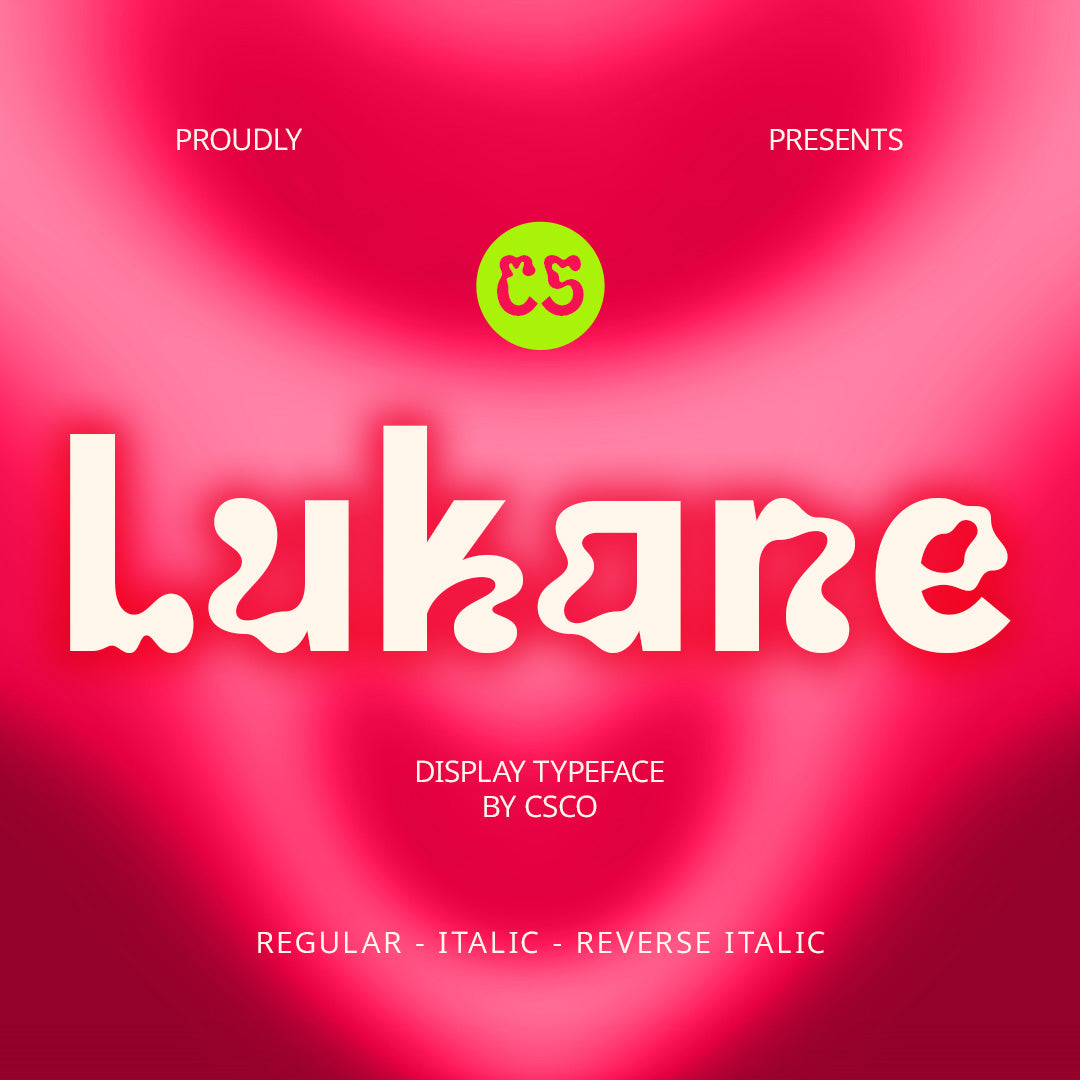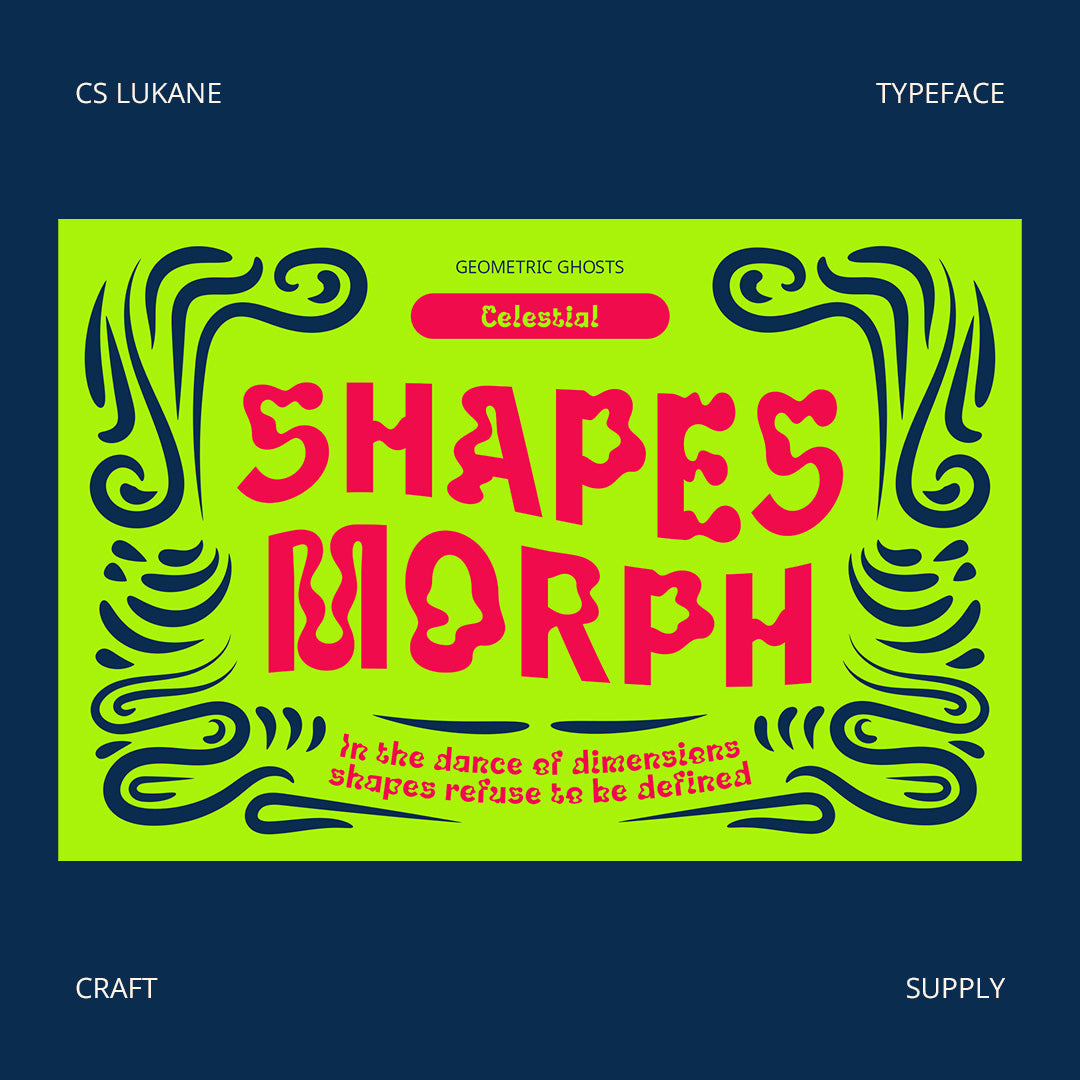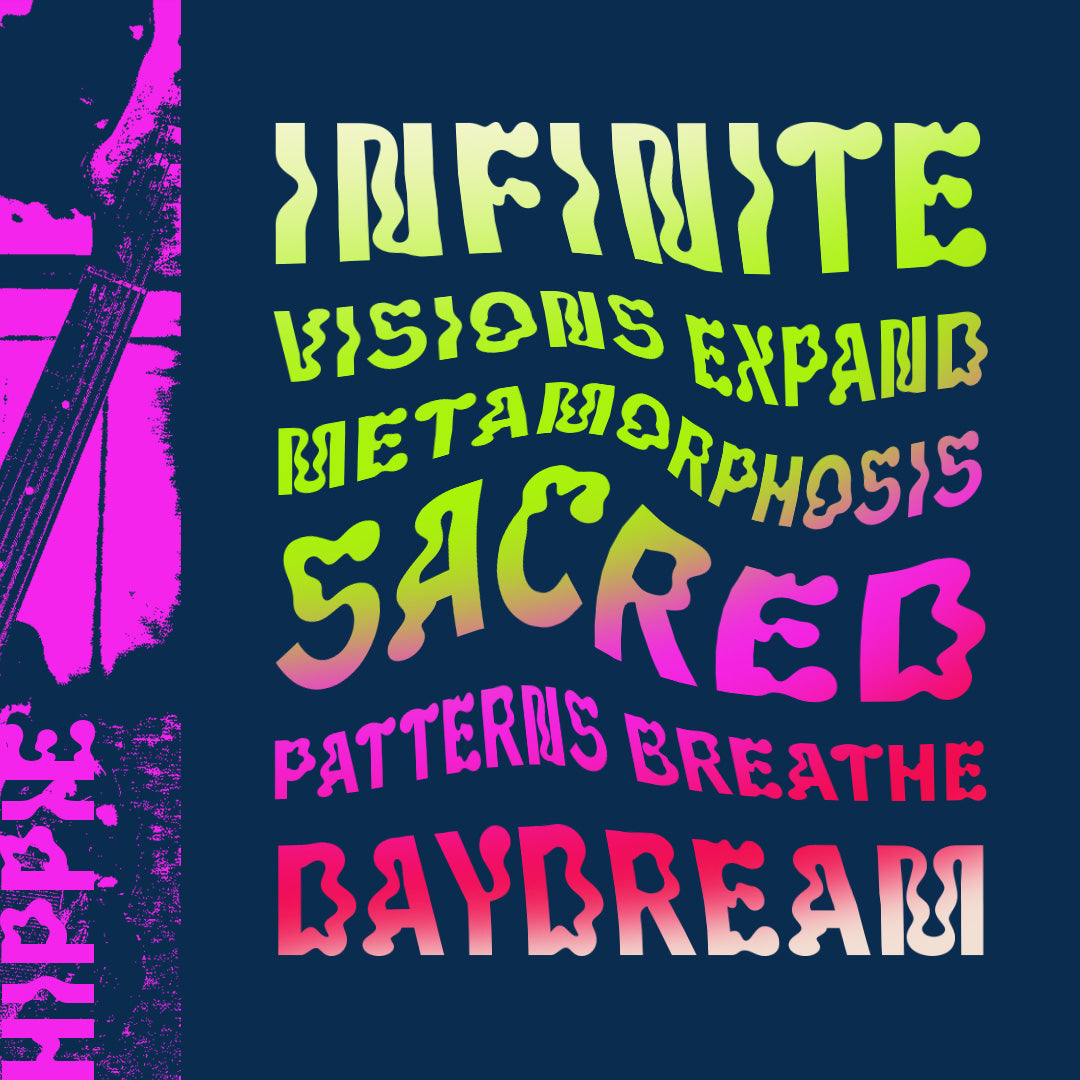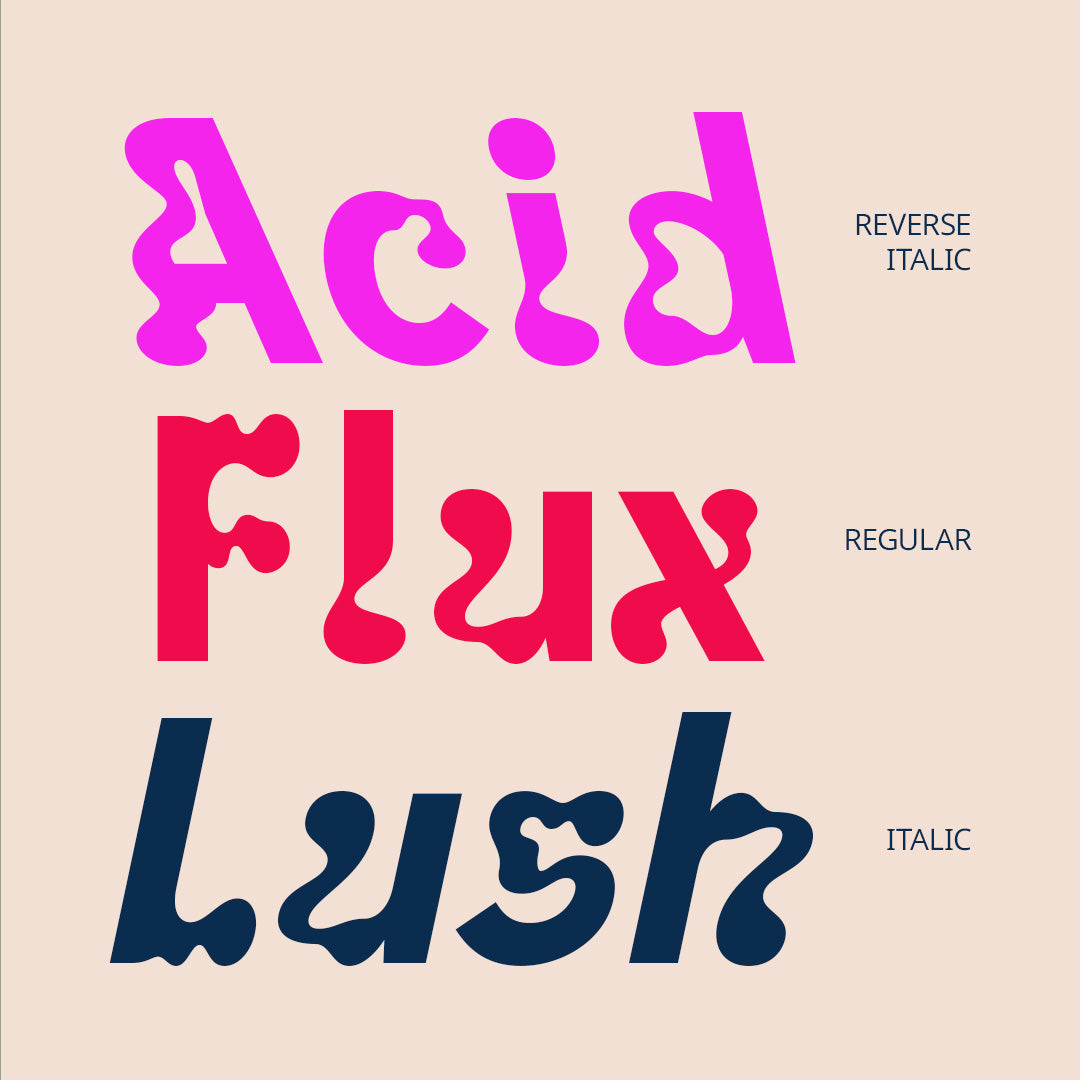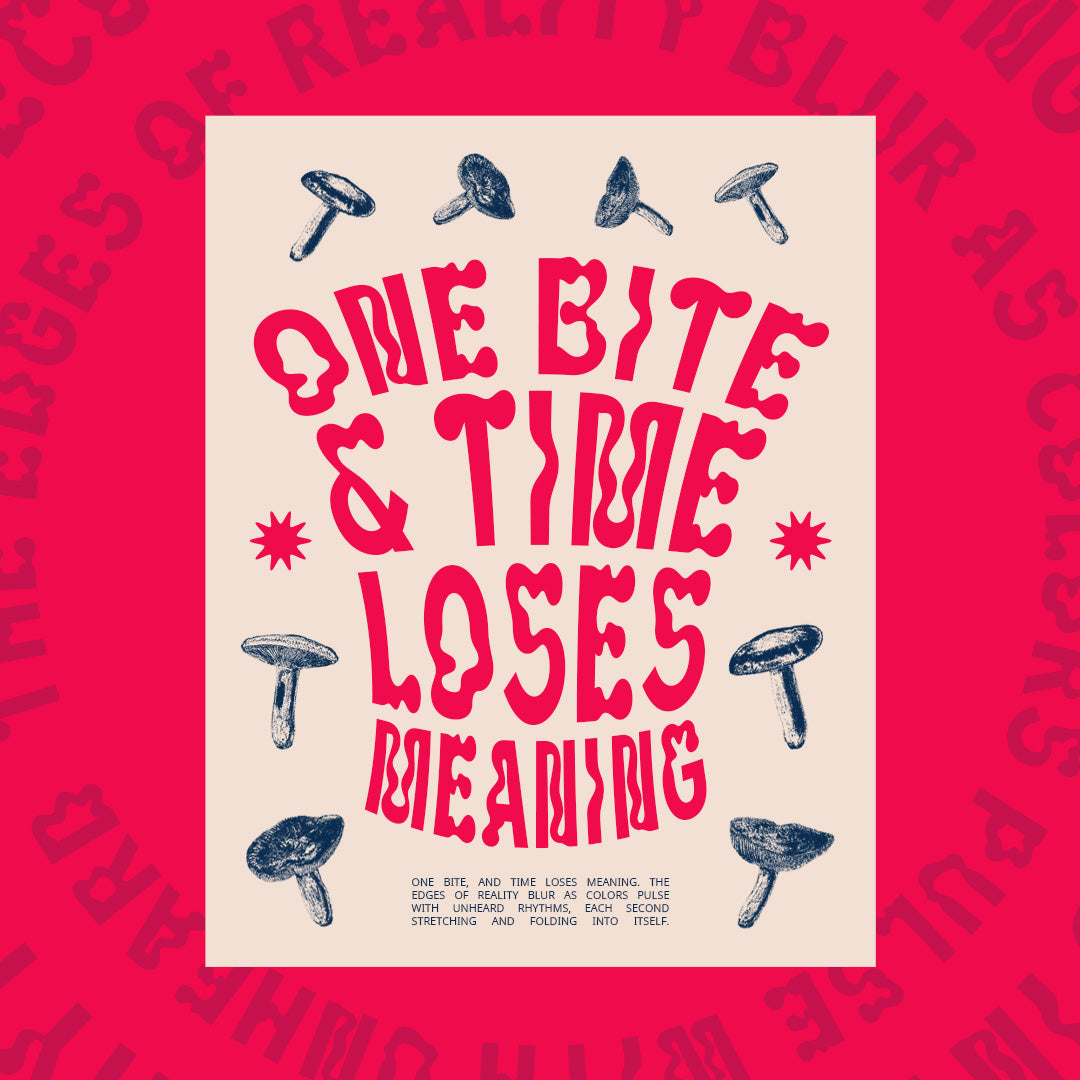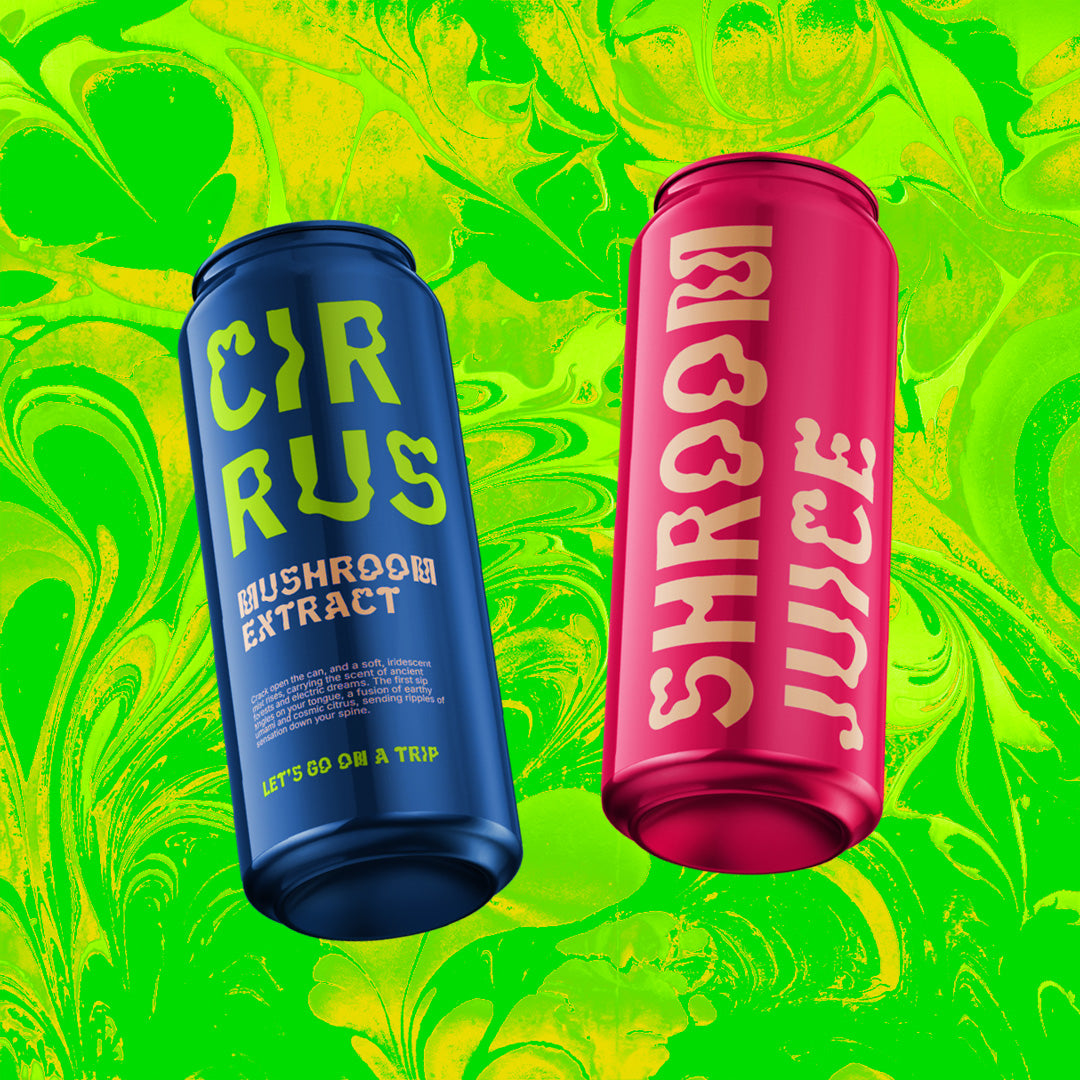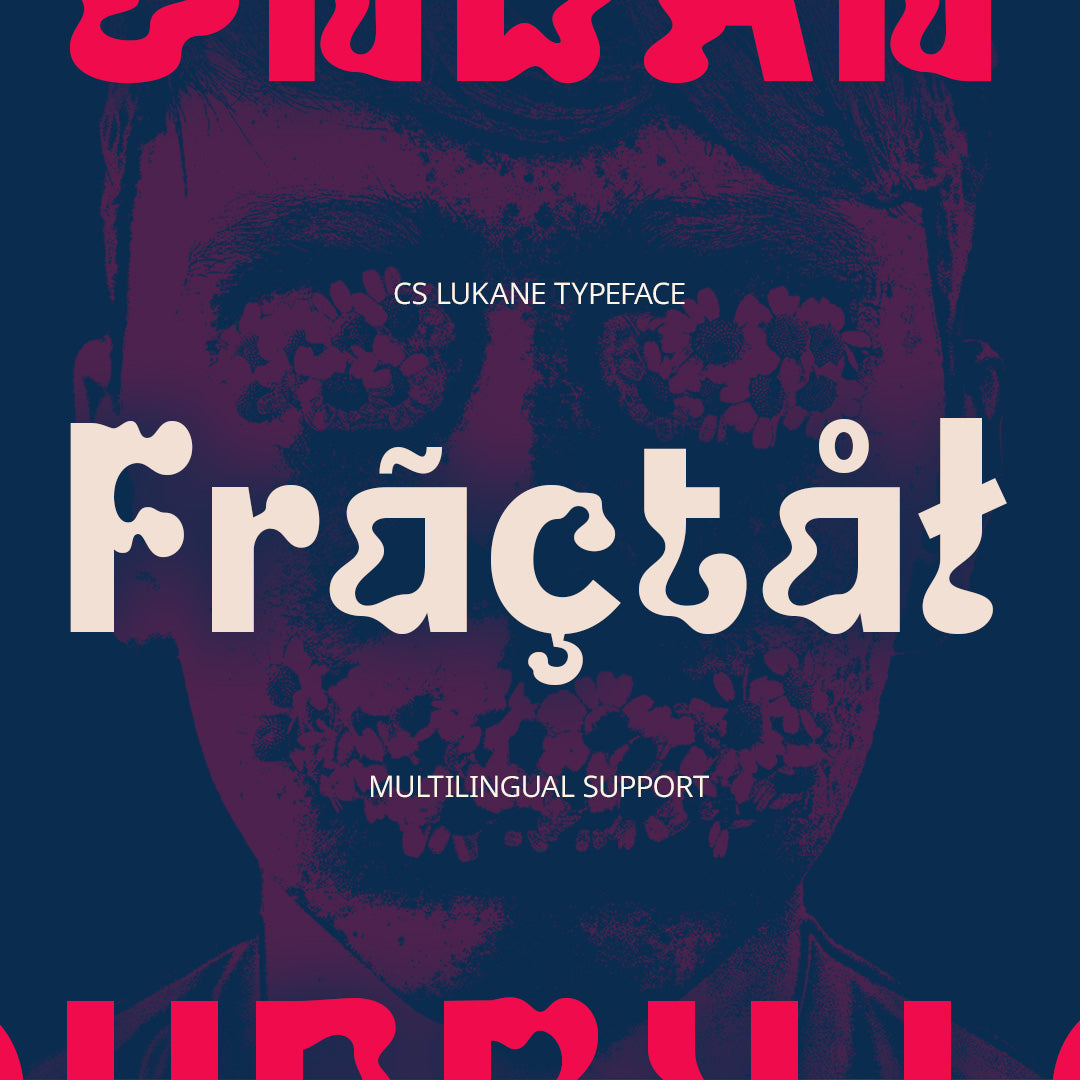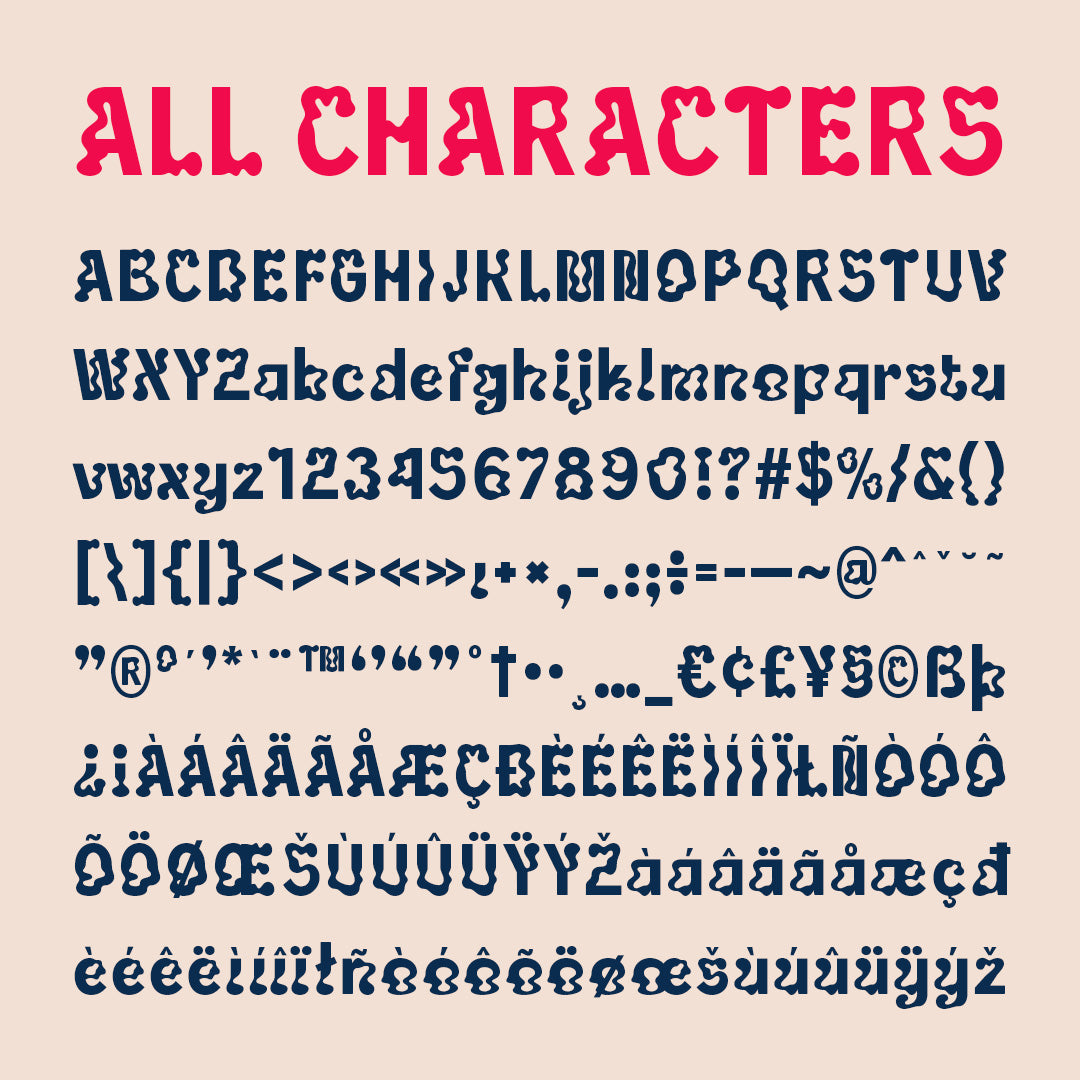
CS Lukane – Psychedelic Font
CS Lukane – Psychedelic Font: A Trippy and Expressive Visual Experience
Flowing and Unconventional Letterforms
CS Lukane – Psychedelic Font is a bold and modern display typeface that captures the essence of psychedelic art with its flowing, wavy, and distorted letterforms. Each character moves with an organic rhythm, creating a visually dynamic and hypnotic effect that draws attention instantly.
A Funky and Lively Aesthetic
With its funky and expressive design, CS Lukane radiates energy and movement. The fluid and unconventional letter shapes evoke a sense of creativity and free-spirited artistry, making it perfect for designs that demand a bold and artistic touch.
Perfect for Music Posters and Experimental Branding
Designed to make an impact, CS Lukane is ideal for music festival posters, album covers, and experimental branding. Its vibrant, trippy aesthetic perfectly complements retro-modern projects, giving them a nostalgic yet contemporary feel that stands out in any creative composition.
A Typeface That Celebrates Limitless Creativity
CS Lukane embraces the spirit of artistic freedom with its unique and unpredictable forms. Whether used in psychedelic event designs, retro-inspired advertisements, or eye-catching social media graphics, this font brings a sense of movement and imagination, making it an essential choice for boundary-pushing creatives.
CS Lukane Regular
CS Lukane Italic
CS Lukane Reverse Italic
CS Lukane – Psychedelic Font is a bold display typeface featuring flowing, wavy, and distorted letterforms that create a dynamic visual effect. It includes three styles: Regular, Italic, and Reverse Italic, making it suitable for a variety of creative projects.